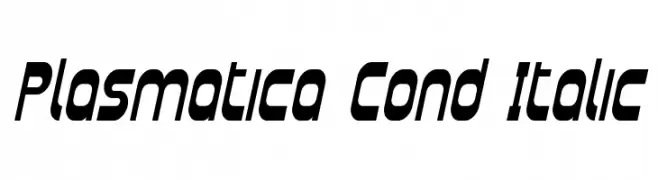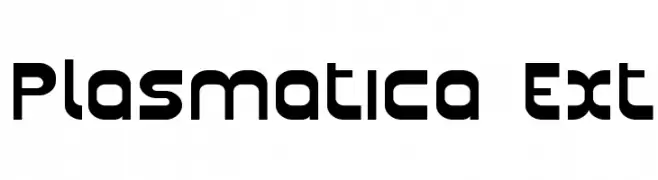
A bold, italicized font with a futuristic and dynamic style.
A bold, geometric font with rounded edges and a modern aesthetic.
A bold, futuristic italic font with a 3D outlined style.
A bold, geometric font with rounded edges and a modern, futuristic style.
A bold, futuristic font with geometric shapes and smooth curves.
A modern, italic outline font with a futuristic and dynamic style.
A bold, italic font with a futuristic and dynamic design.
A bold, italic, and condensed font with a futuristic and dynamic design.
A modern, geometric font with bold, rounded characters and a sleek, futuristic style.
A bold, italic font with a futuristic and dynamic design.